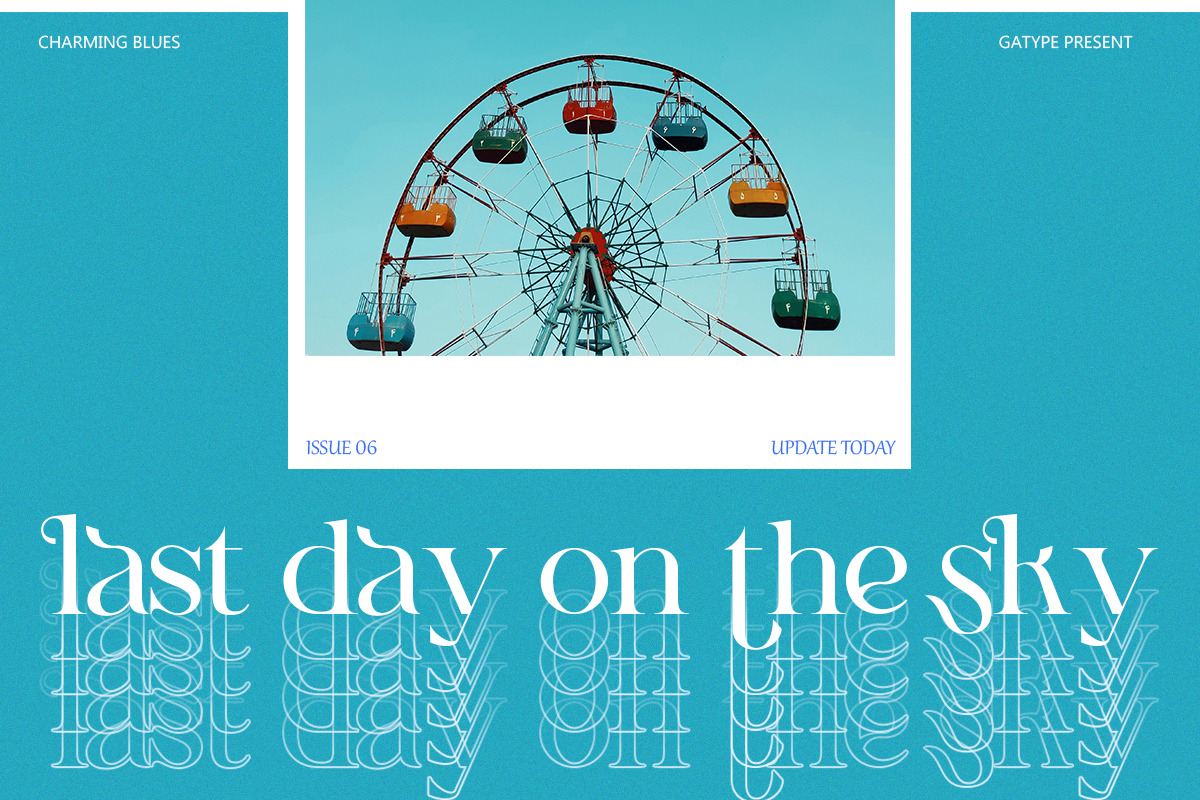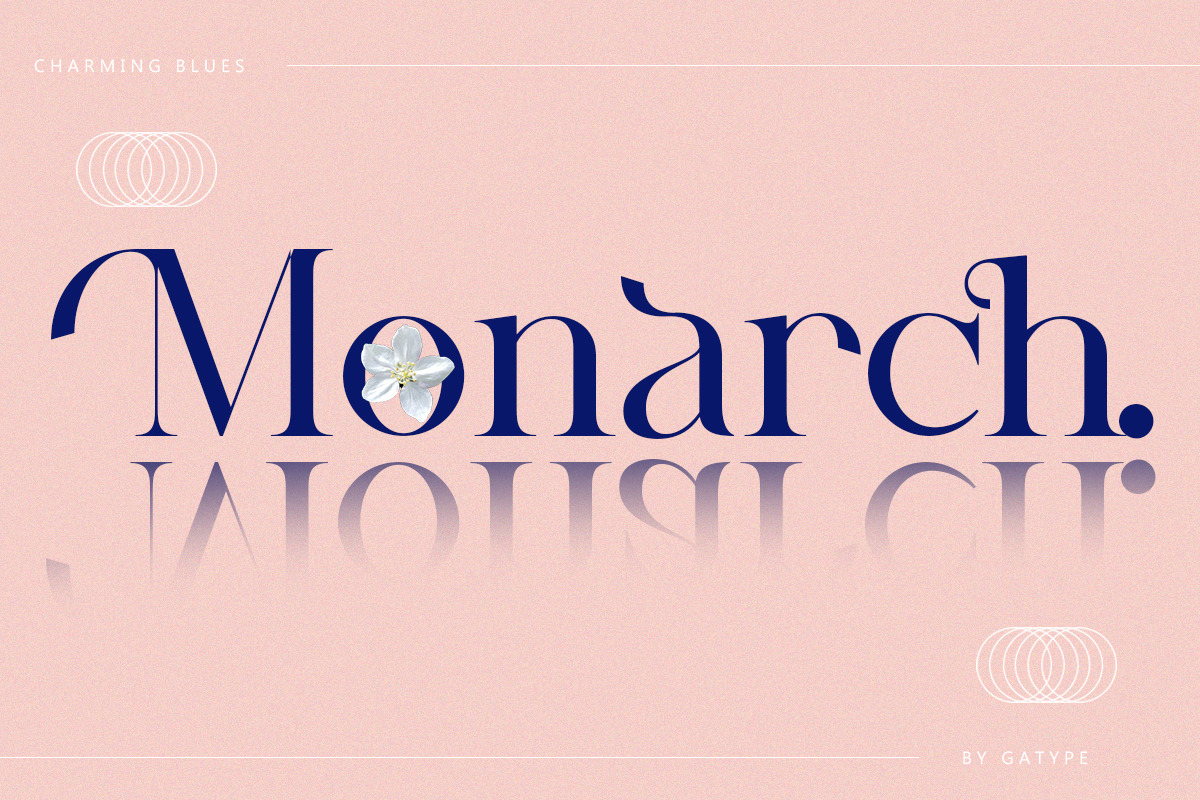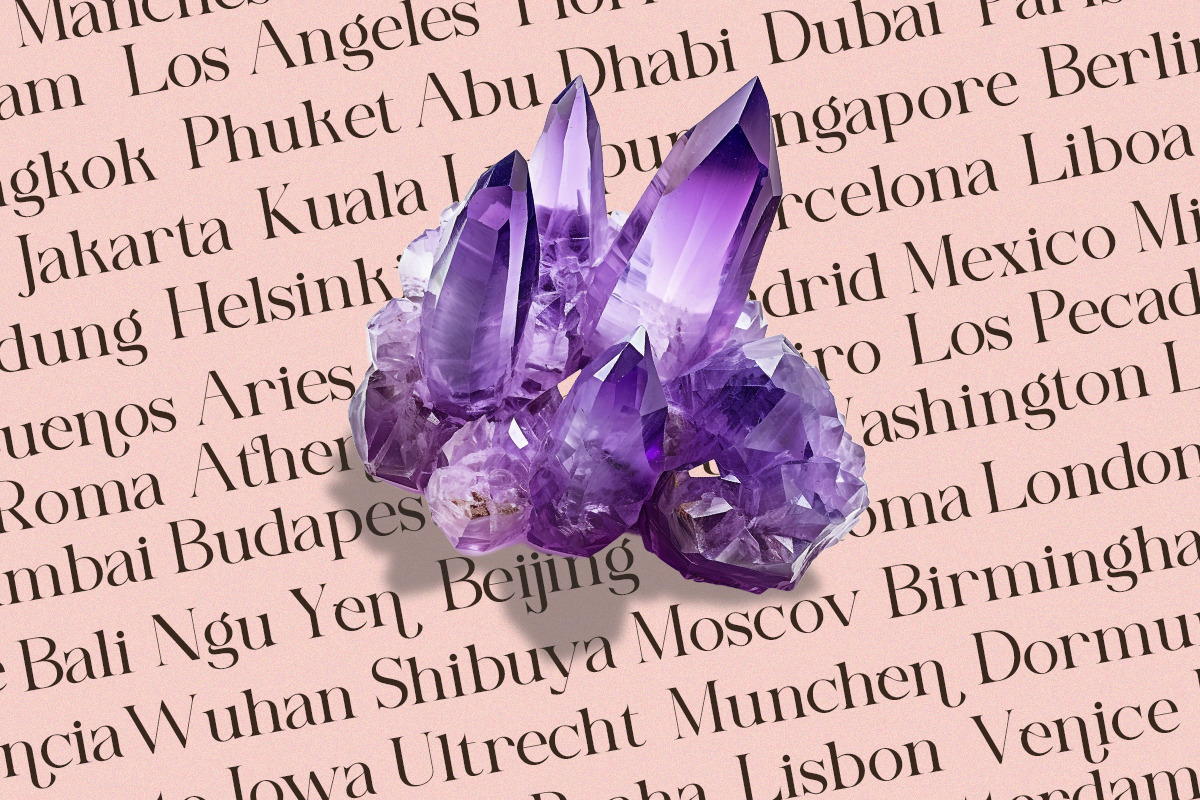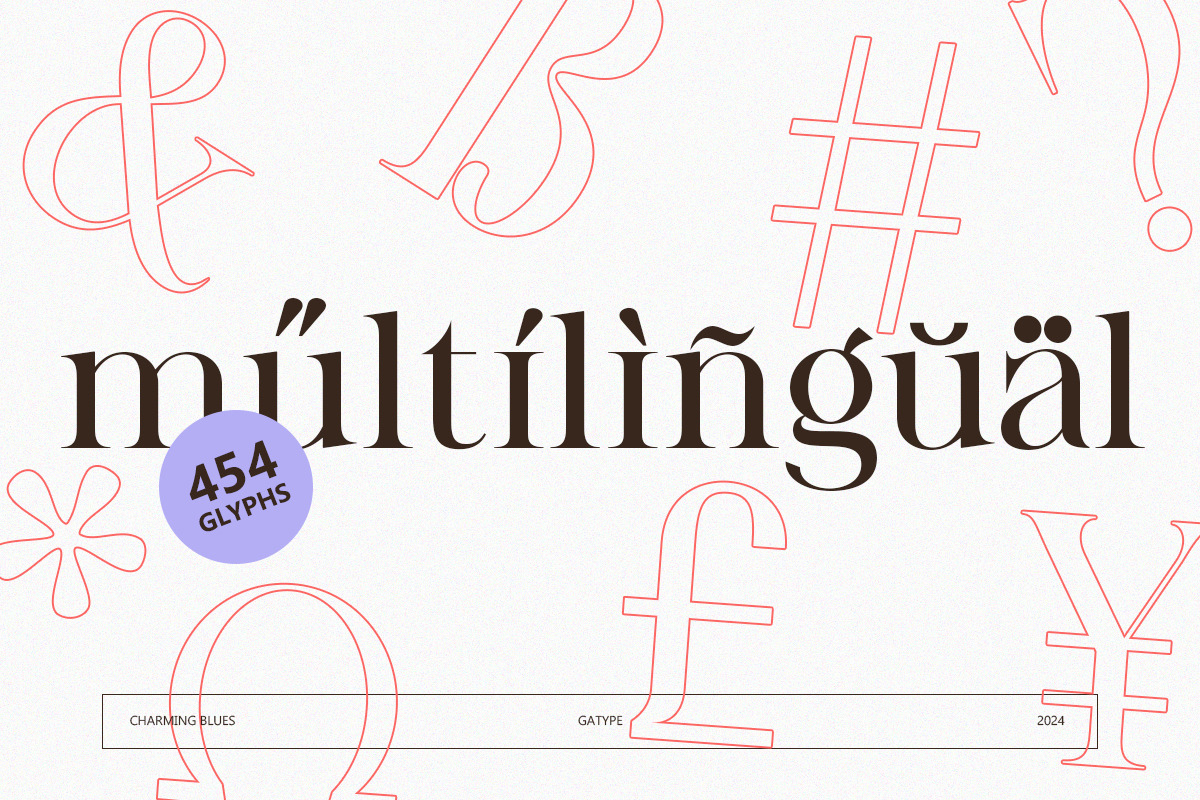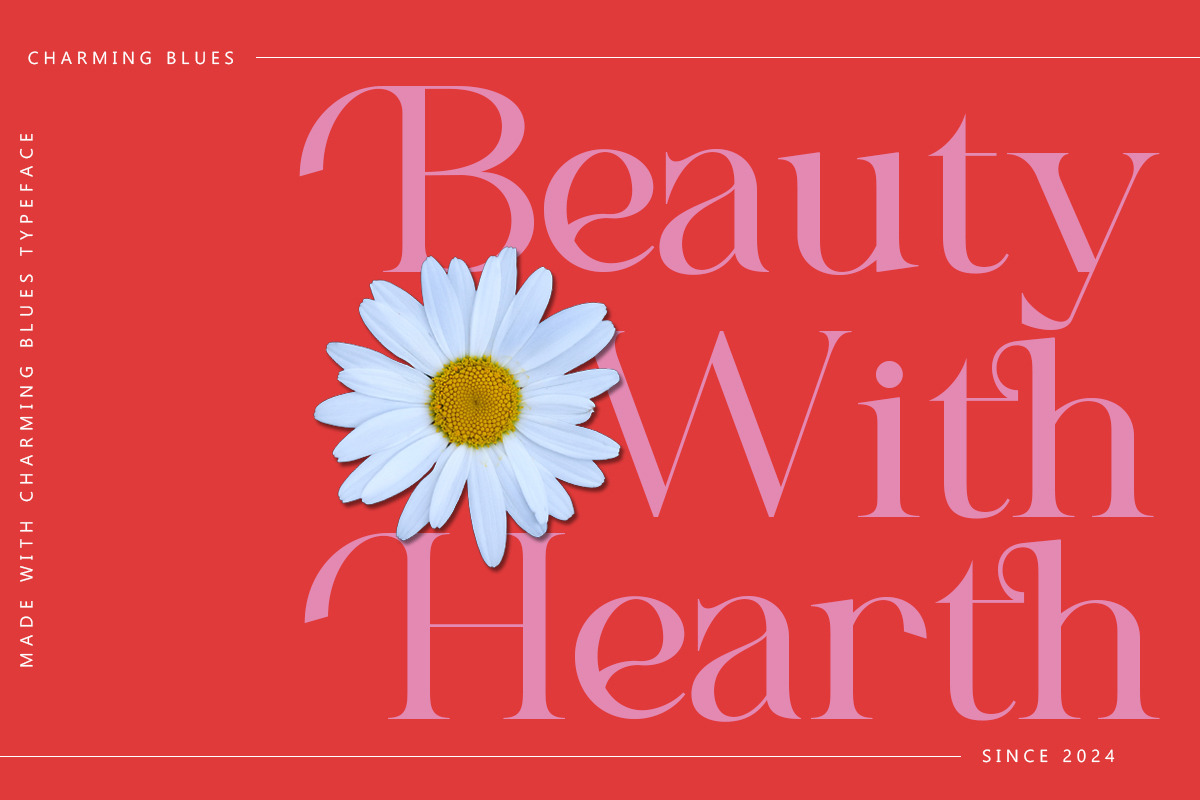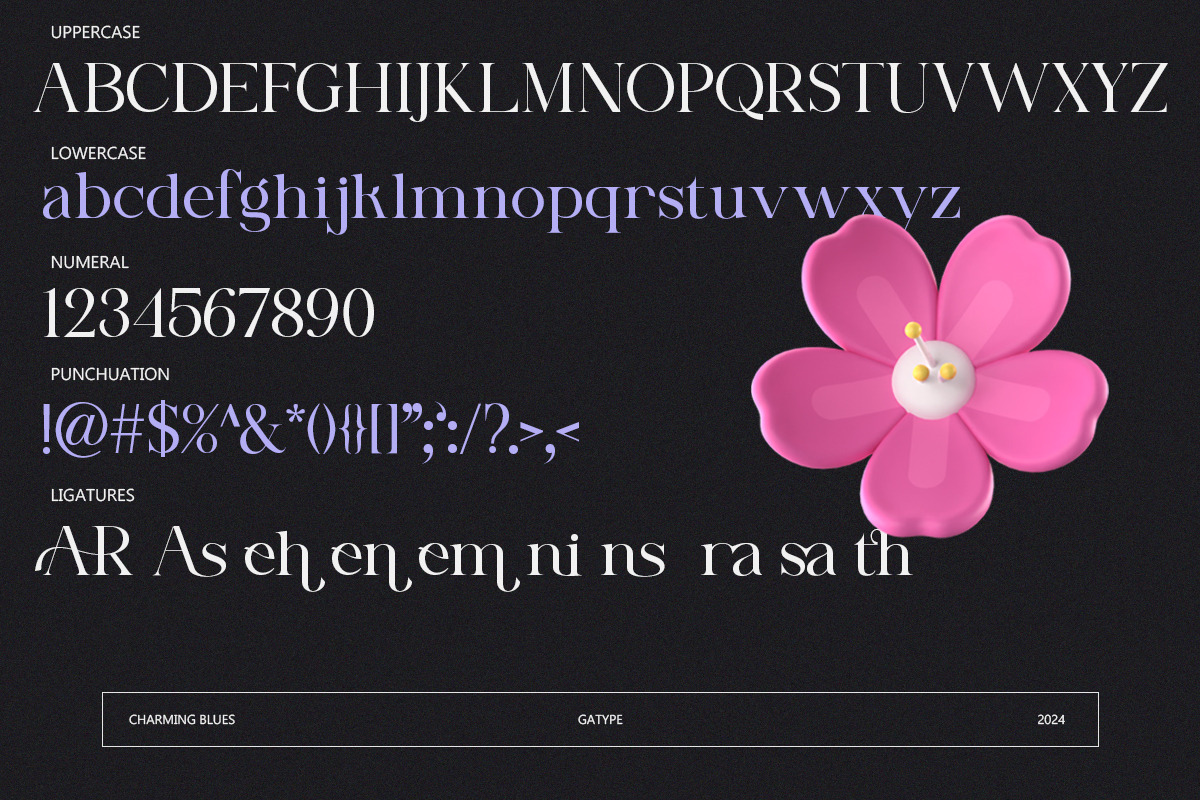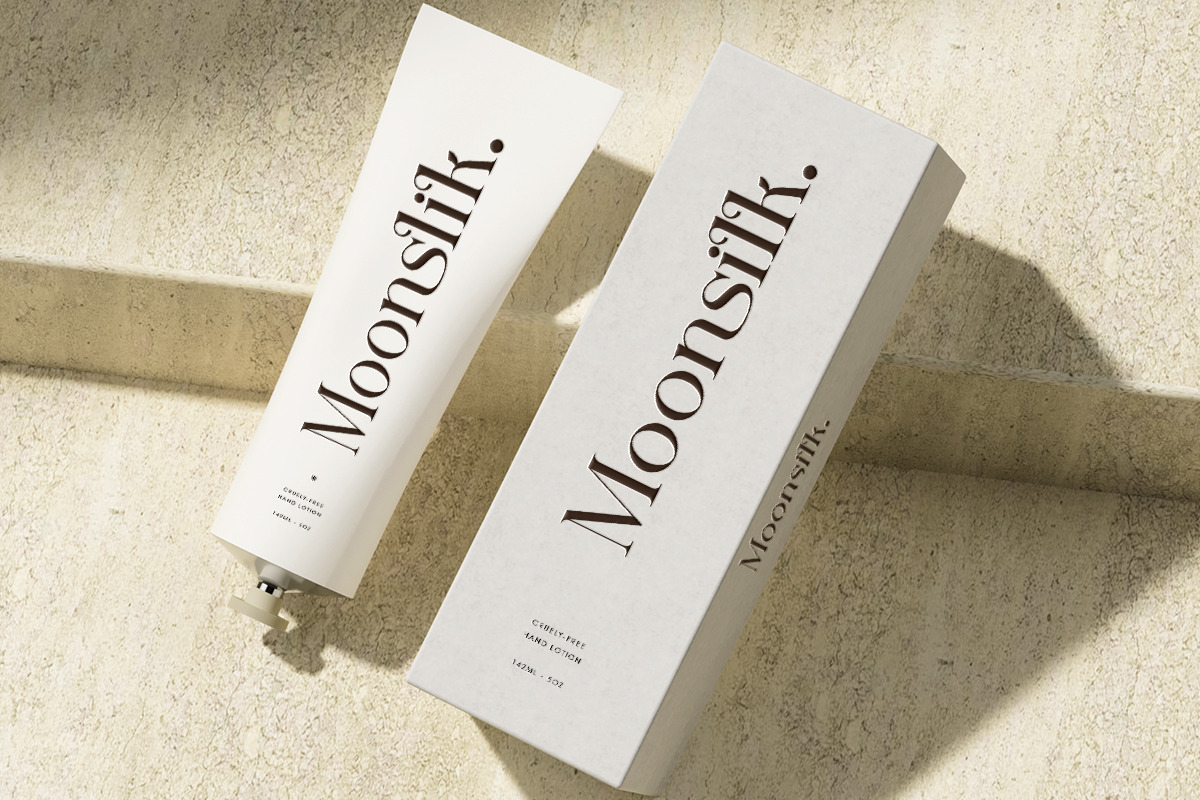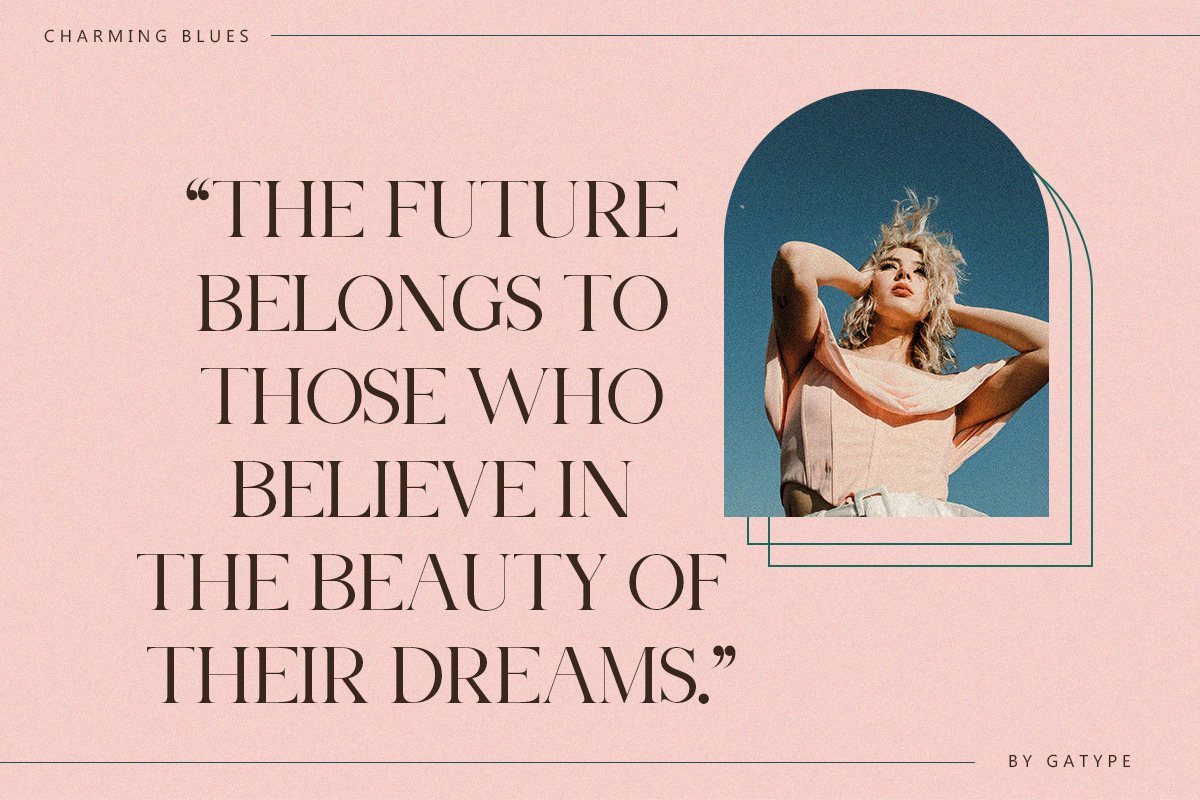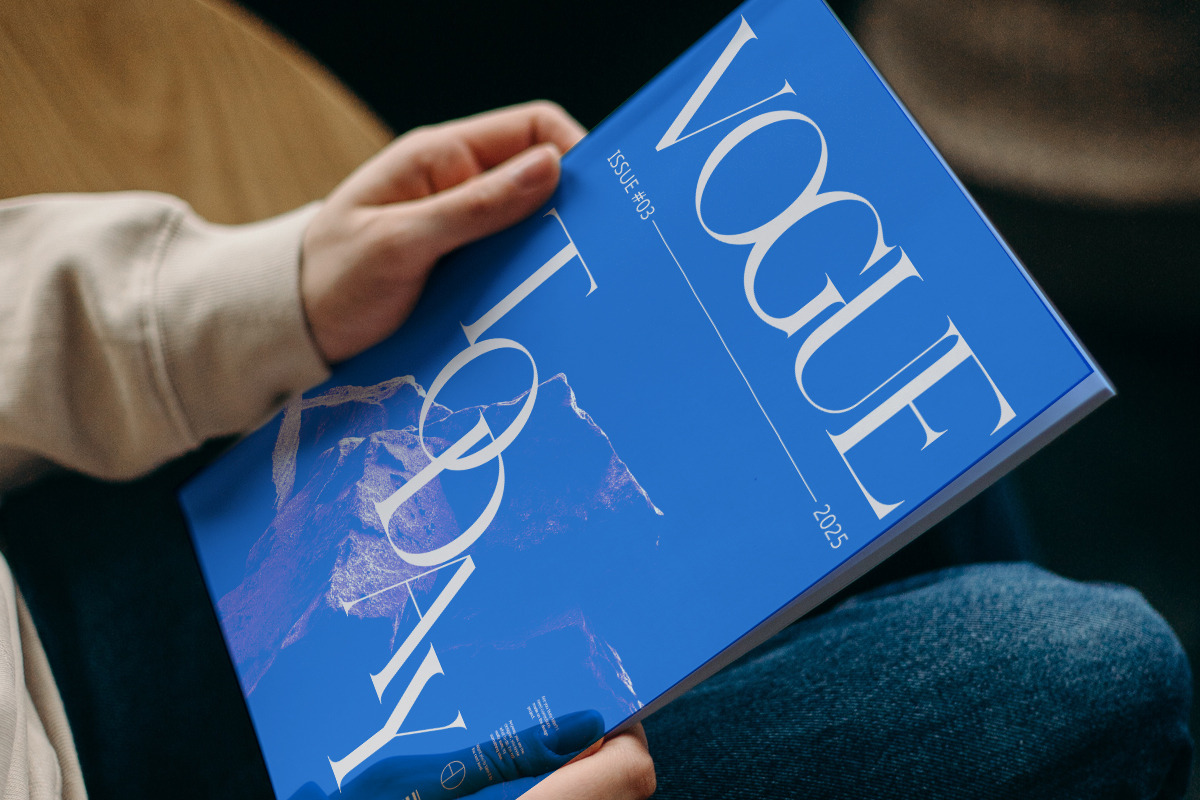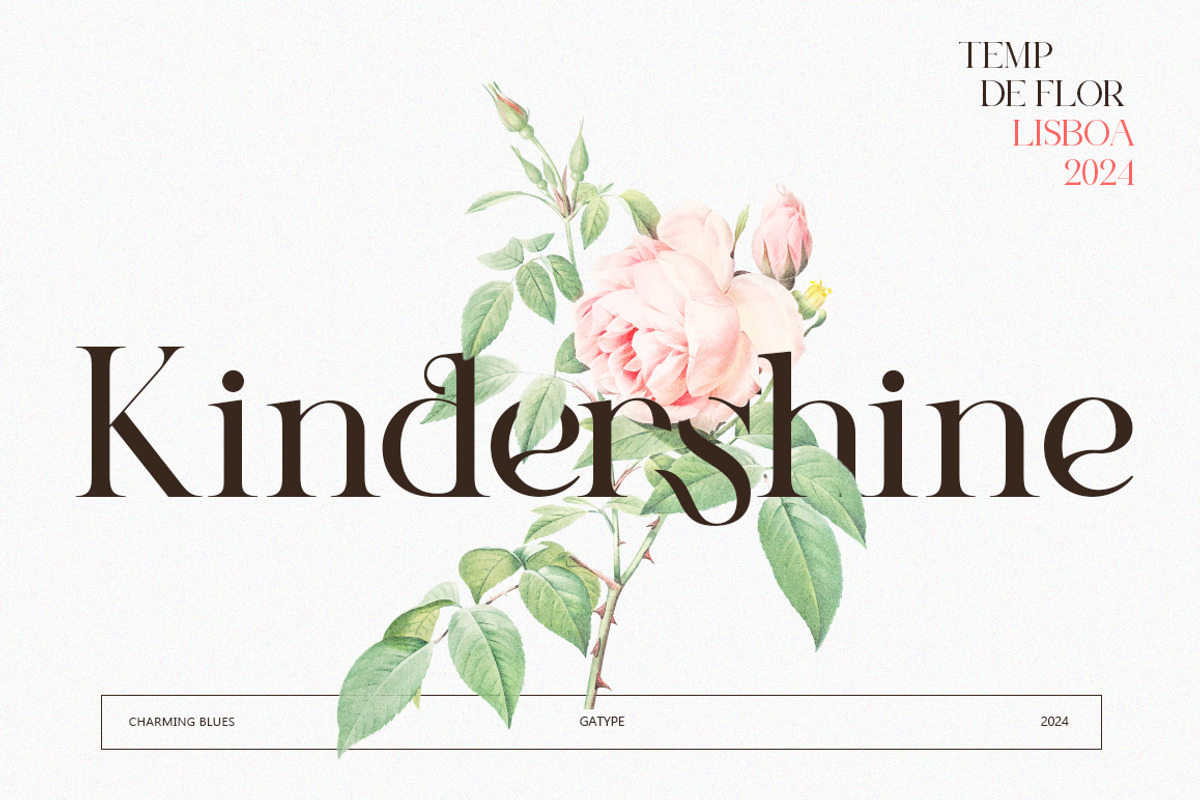
Charming Blues
Charming Blues is a modern & luxurious serif. Its soft curves mixed with high contrast glyphs give it a feminine quality. Great in layout design for quotes or body copy, and will be unique for fashion typography use, logo design. And also multilingual support.